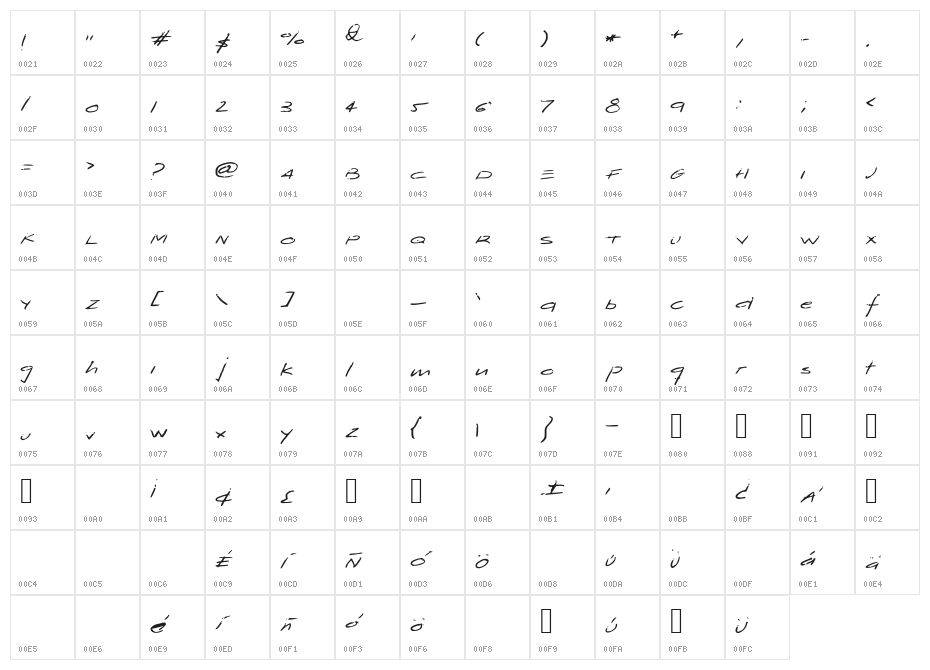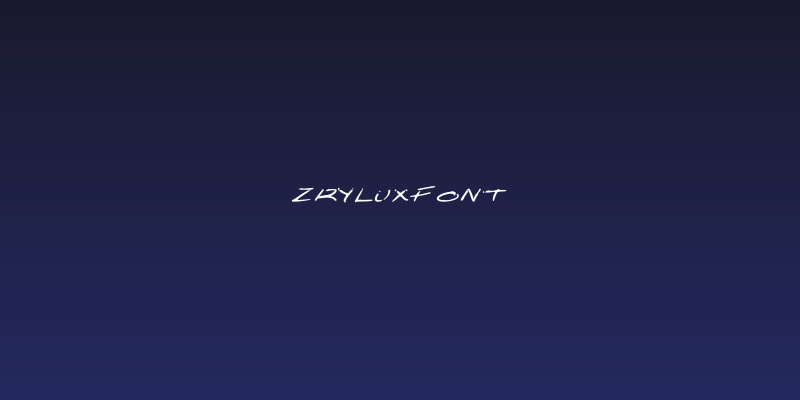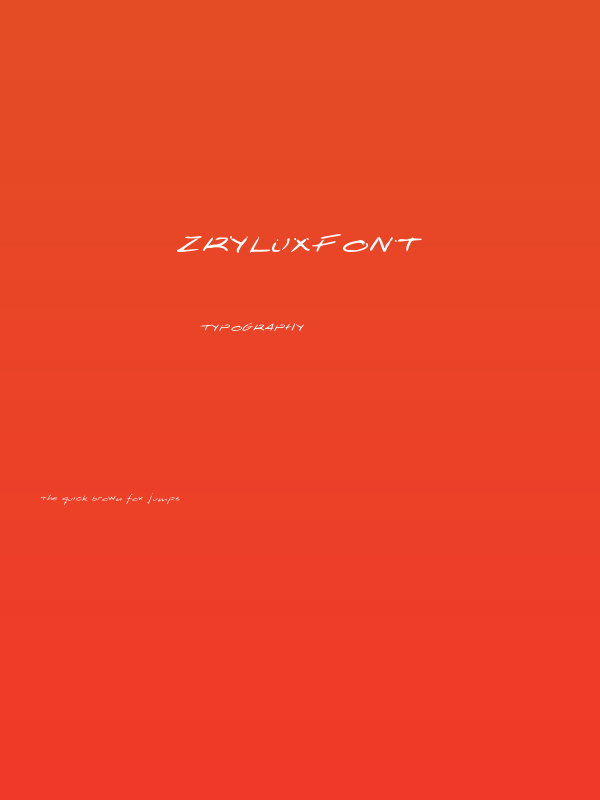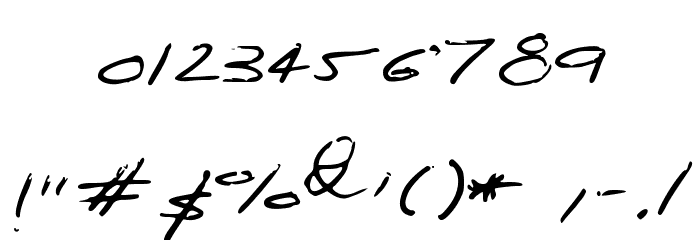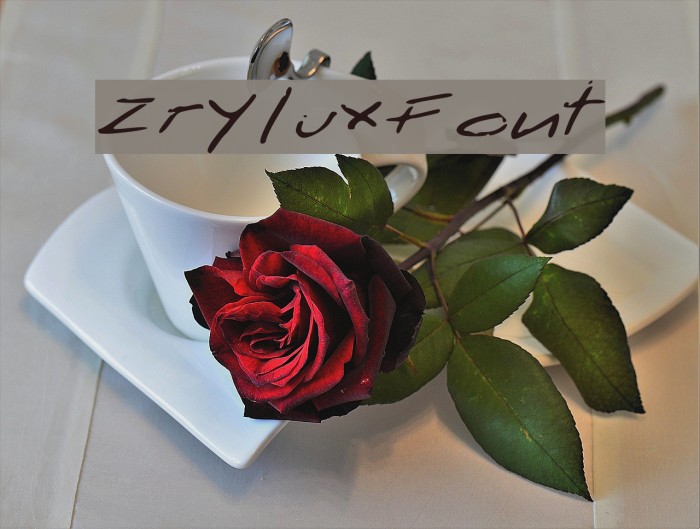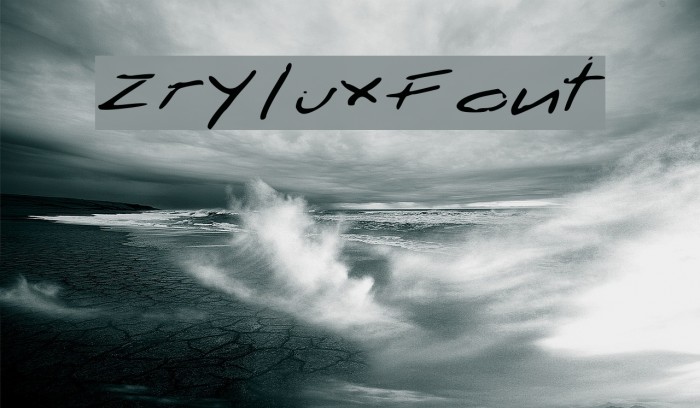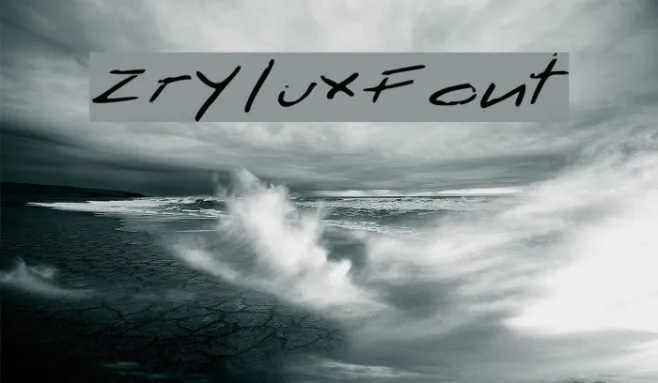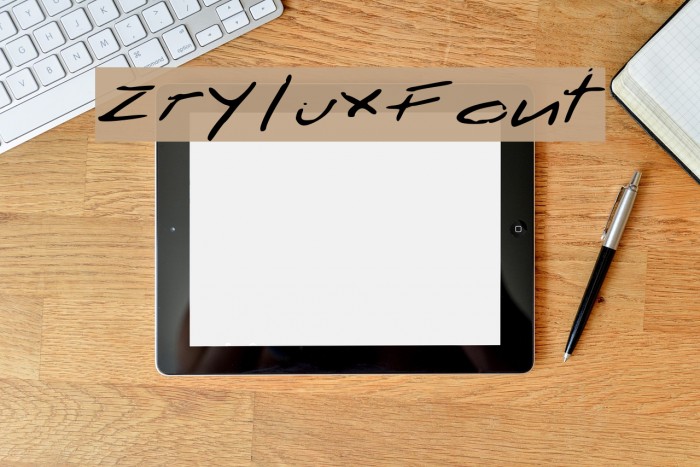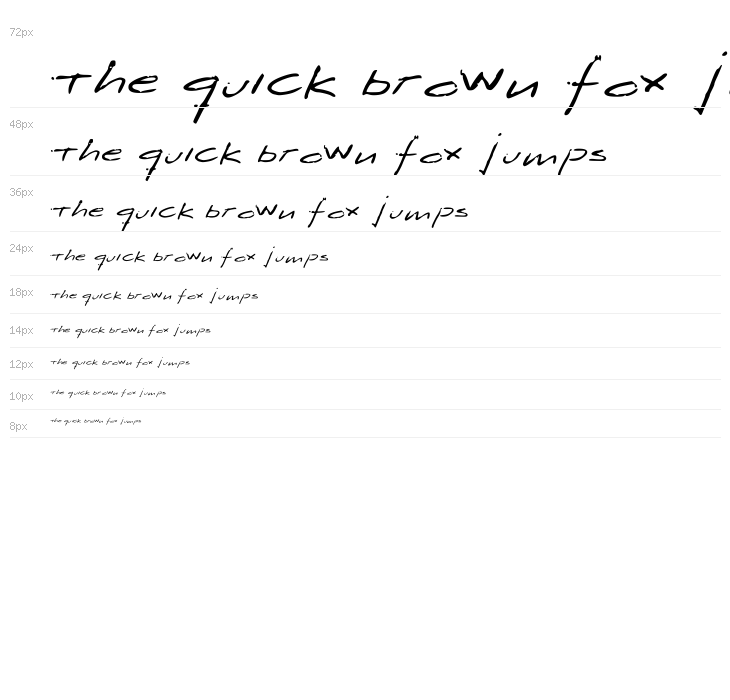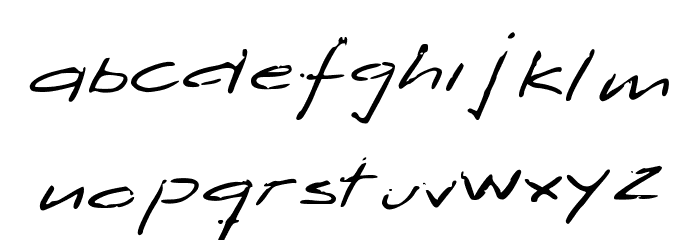
ZryluxFont Font
ZryluxFont Description
This font exhibits a dynamic and expressive handwritten style, characterized by its fluid and cursive strokes. The letters are slightly slanted, giving it a casual yet elegant appearance. The uppercase and lowercase letters maintain a consistent flow, with some letters featuring unique flourishes that add to its charm. The numerals and special characters are crafted with the same attention to detail, ensuring a cohesive look throughout. This font's organic feel makes it suitable for projects that require a personal touch.
| Overall Style | Casual, Elegant |
| Use Case | Logos, Invitations, Artistic Posters |
| Proposed Projects | Ideal for personal invitations, greeting cards, artistic posters, and branding that requires a personal touch. |